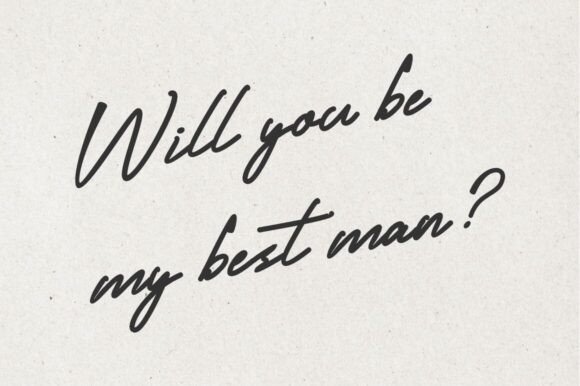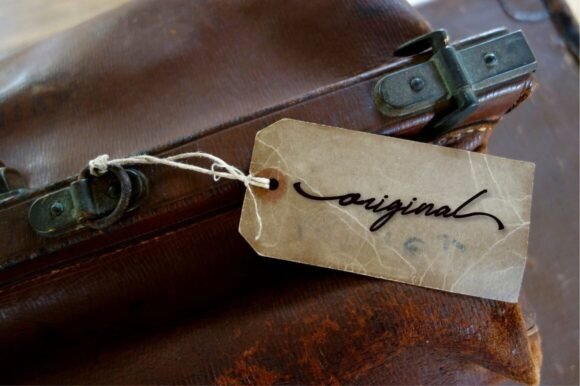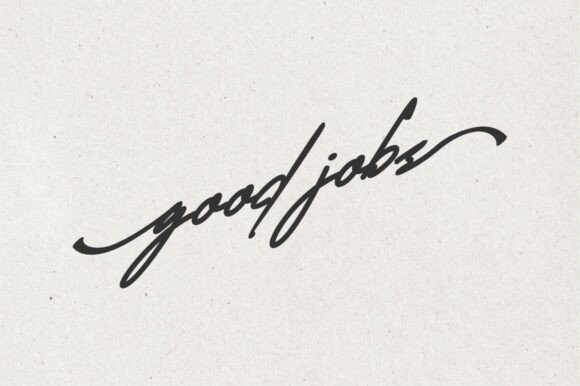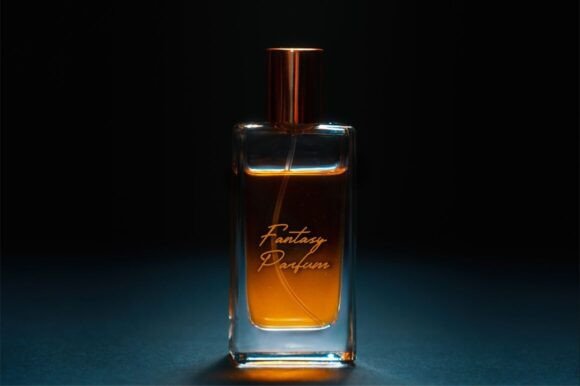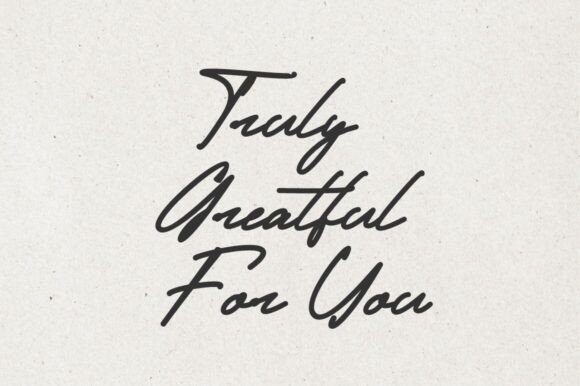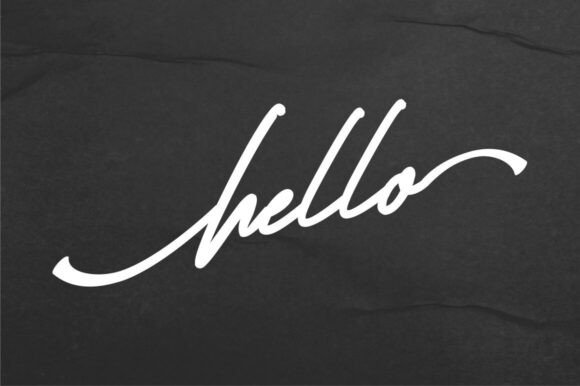
Introduction to Roda Dua Font
Introducing “Roda Dua” is a stylish, handwritten signature font with a sleek, personal touch that captures the essence of casual elegance.
The fluid strokes and smooth curves give it a refined yet relaxed appearance, making it perfect for designs that need a sophisticated, authentic feel Ideal for branding, invitations, or any creative project that calls for a personalized, unique touch, Roda Dua offers a versatile look that blends seamlessly with modern and minimalist aesthetics.
Key Features of Roda Dua Font
Why Choose Roda Dua Font?